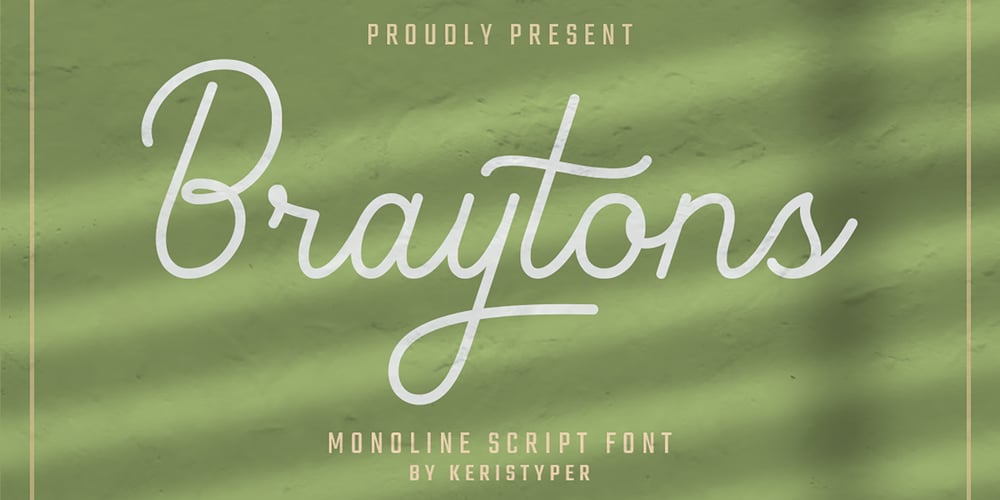
Braytons Font Family was designed by Tezar Tantular and published by Keristyper Studio. Braytons contains 1 styles and family package options. Braytons Script is a flowing monoline handwritten font, described by an elegant touch, perfect for your favorite projects. Fall in love with its incredibly distinct and timeless style and use it to create spectacular designs!Braytons Handwriting Font multilingual support: Afrikaans, Albanian, Catalan, Danish, Dutch, English, Estonian, French, Finnish, German, Icelandic, Indonesian, Italian, Malay, Norwegian, Portuguese, Spanish, Swedish, Zulu, and many more.What’s Included : Standard & Multilingual glyphs Ligature Works on PC & Mac Simple installations Accessible in Adobe Illustrator, Adobe Photoshop, Adobe InDesign, and even work on Microsoft Word. Hope you enjoy our font!